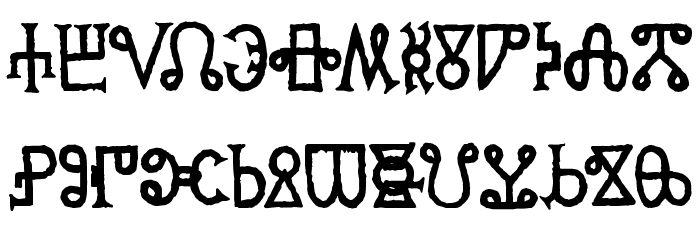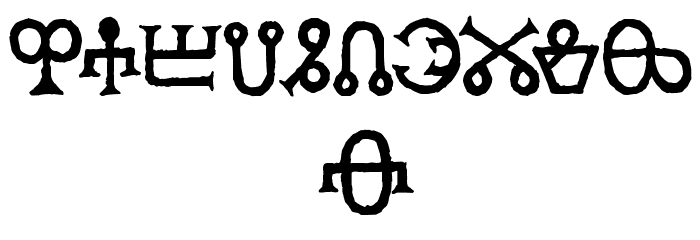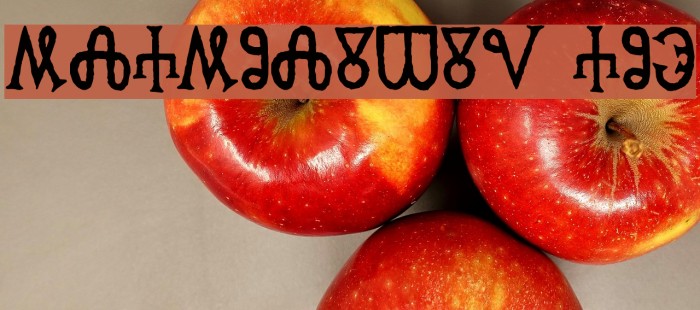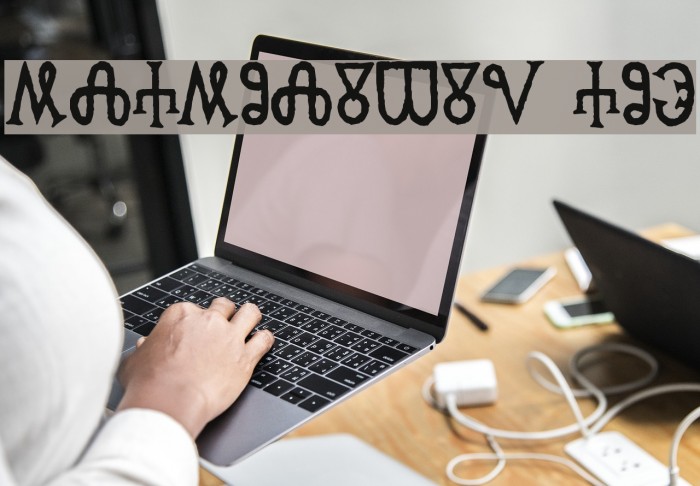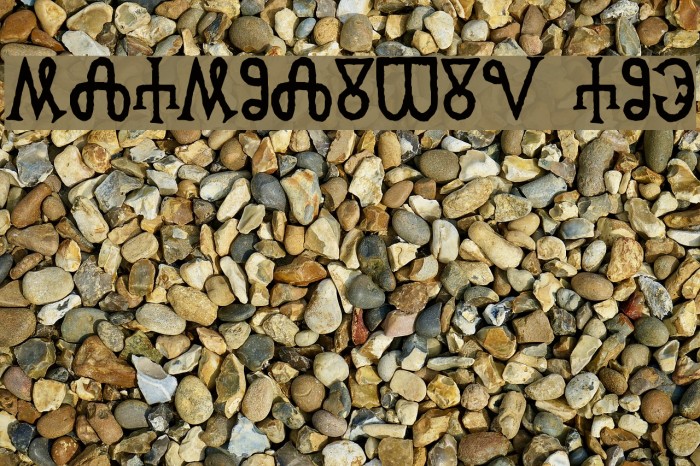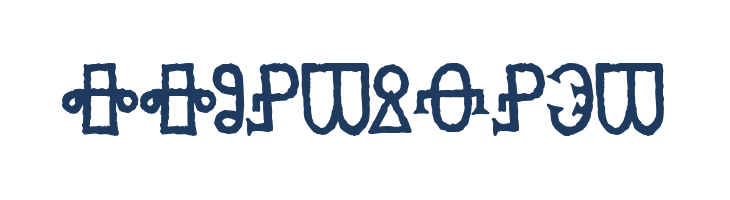
Glagolitic AOE Font
This font is a decorative and historical script inspired by the ancient Glagolitic alphabet. It features intricate and ornate letterforms with a unique blend of geometric and organic shapes. The characters are bold and have a strong presence, with each letter exhibiting a distinct personality. The font's design is reminiscent of ancient scripts, making it ideal for projects that require a touch of historical or cultural significance. The overall appearance is both artistic and structured, with a consistent line weight throughout the characters.
A decorative font inspired by the ancient Glagolitic script, featuring bold and intricate letterforms.
- Proposed Projects: Ideal for historical or cultural projects, book covers, posters, and artistic designs that require a unique and ancient aesthetic.
- Overall Style: Vintage
- Use Case: Logos, Headlines, Artistic designs